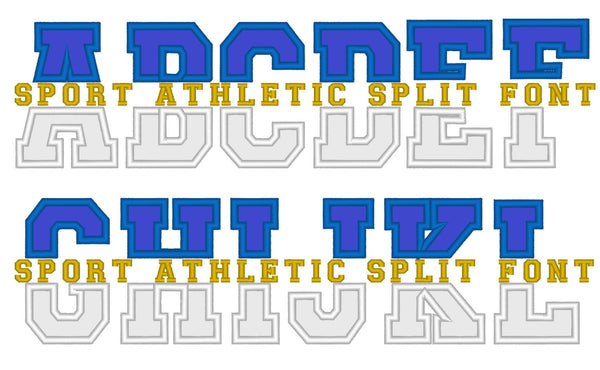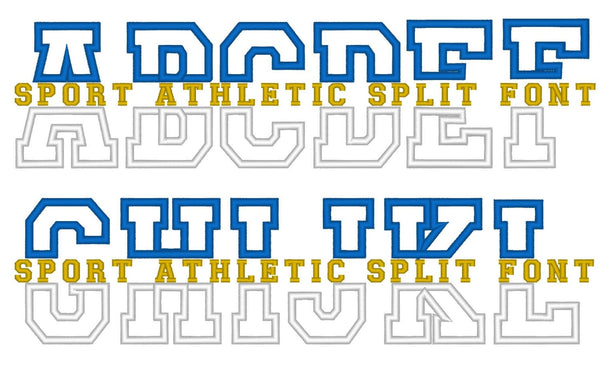
Split Font – Fixed vs. Adjustable Spacing
This design set includes two types of fonts: fixed spacing and adjustable spacing.
- Fixed Spacing: The Greek letters come as one grouped piece with evenly spaced letters. The spacing between them cannot be adjusted. If you're adding a satin stitch font in the middle, keep in mind that larger satin fonts may overlay the Greek letters.
- Adjustable Spacing: This version allows you to modify the spacing between the Greek letters. This means you can adjust the gap to better fit a name or word in the middle and avoid any overlapping, even when using a thicker satin stitch font.
Split Font with Adjustable Spacing
Single Letter Examples
Satin Stitch 0.4in Greek Split 4in
Satin Stitch 0.6in Greek Split 4in
Multiple Letter Examples
Satin Stitch 0.8in Greek Split 4in
Satin Stitch 1.5in Greek Split 7in
Satin Stitch 1.8in Greek Split 7in
Satin Stitch 2.4in Greek Split 8in
Satin Stitch 1.8in Greek Split 6in
- The Greek letters are split into top and bottom parts.
- You can place each letter individually—both the top and bottom parts—and adjust the space between them however you want.
- This is great if you're aiming for a custom look or want to fit it around another design element, like a name or symbol in the middle.
Split Font with Fixed Spacing
Satin Stitch 0.8in Greek Split 4in
Satin Stitch 0.8in Greek Split 5in
Satin Stitch 0.8in Greek Split 6in
Satin Stitch 2.4in Greek Split 8in
Satin Stitch 2.8in Greek Split 8in
- The Greek letters come as one grouped piece with evenly spaced letters. The spacing between the letters is fixed and cannot be adjusted.
- You can still add something in the middle, such as a handwritten-style name or word.
- If you are combining this with a satin stitch font, please note: the larger the satin stitch font is, the more it may overlap or overlay the Greek letters.